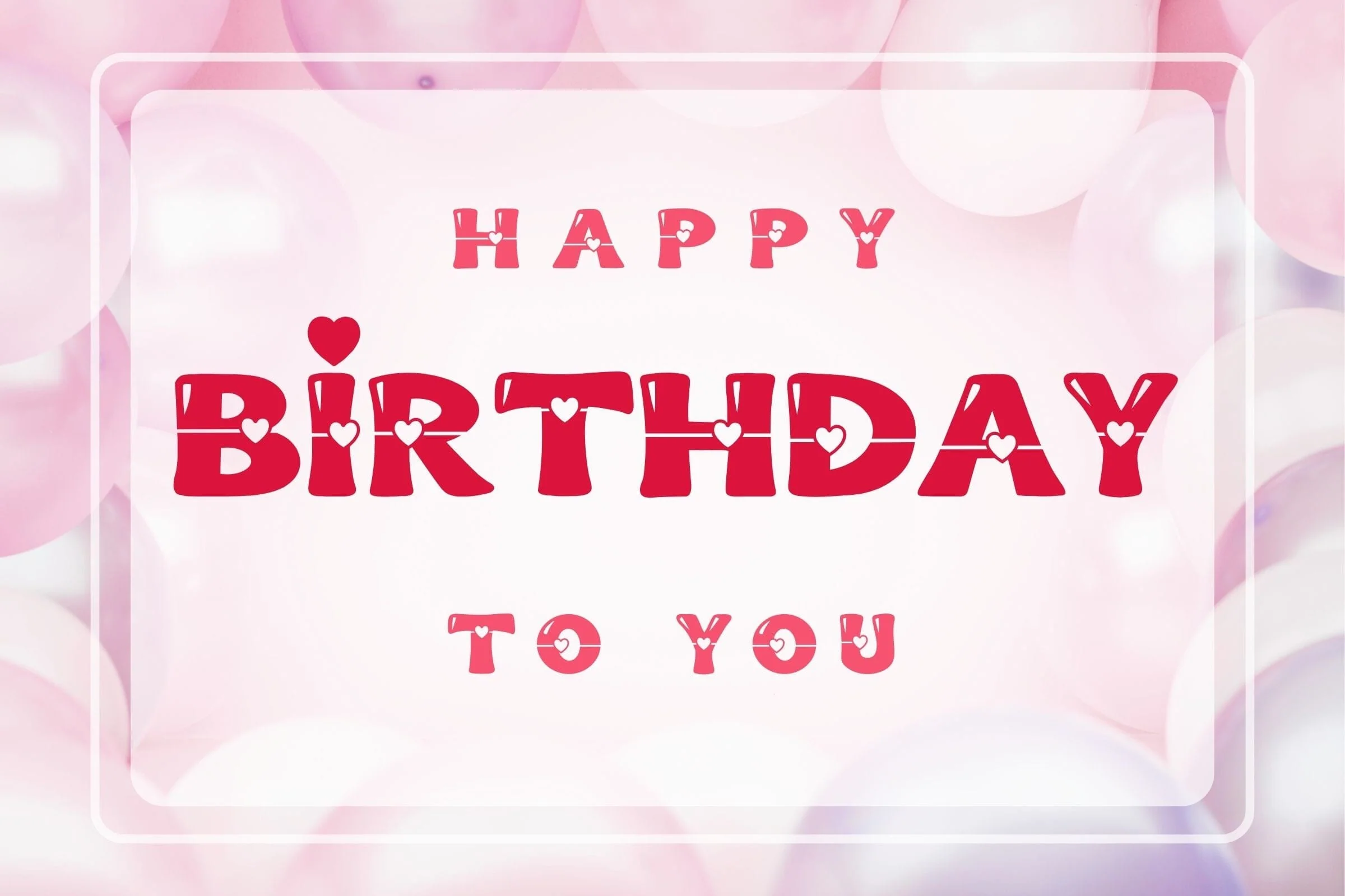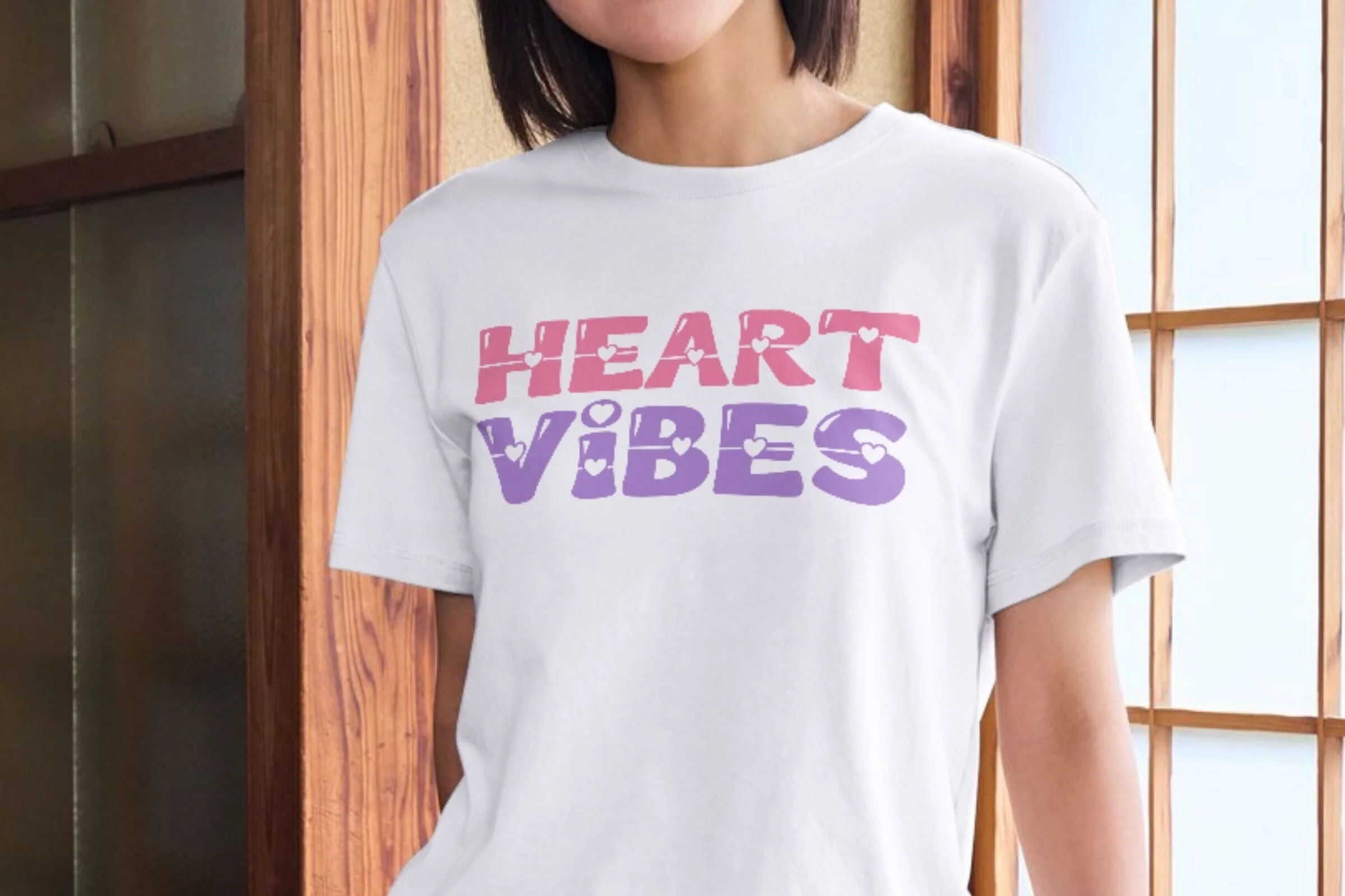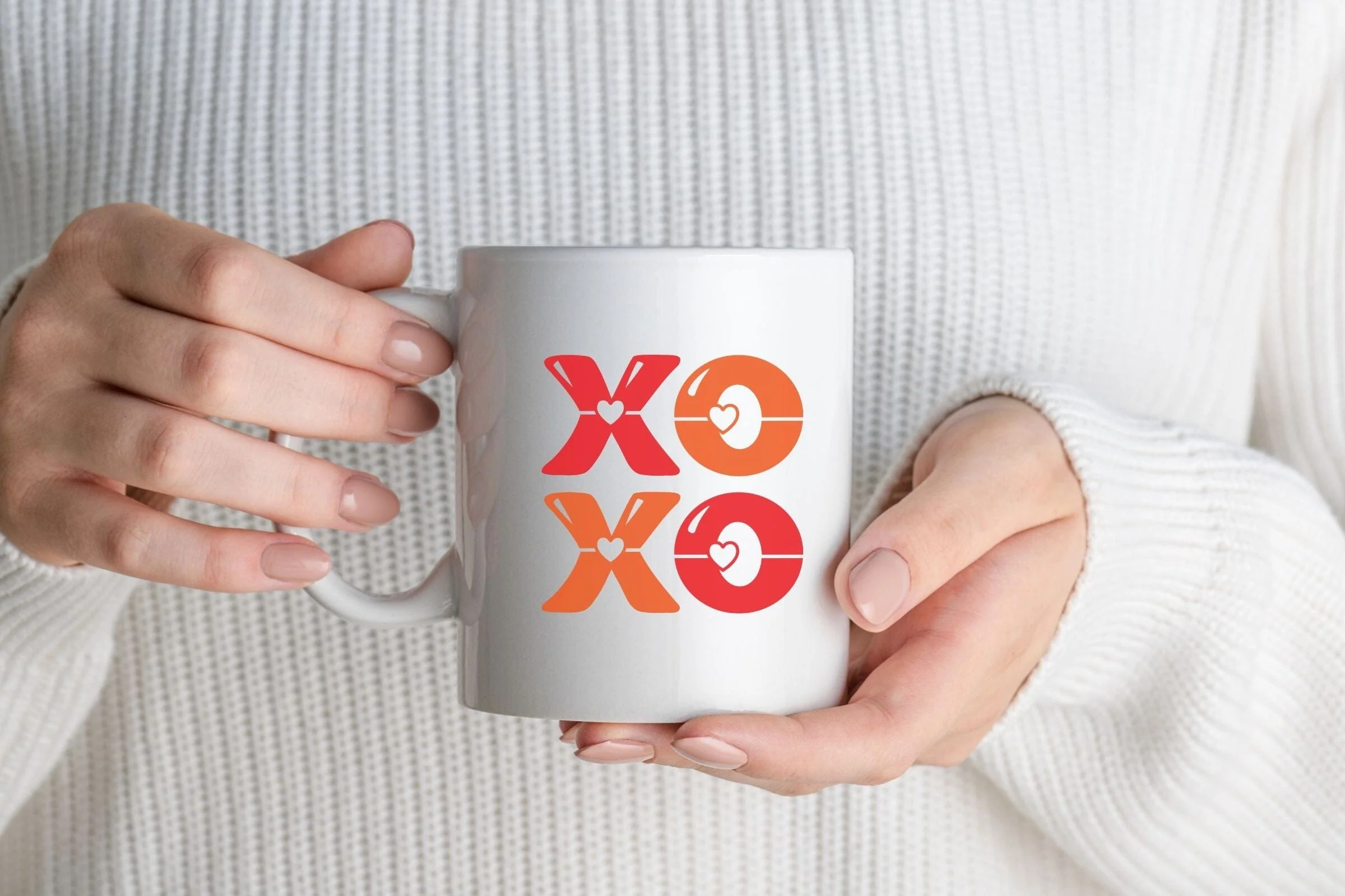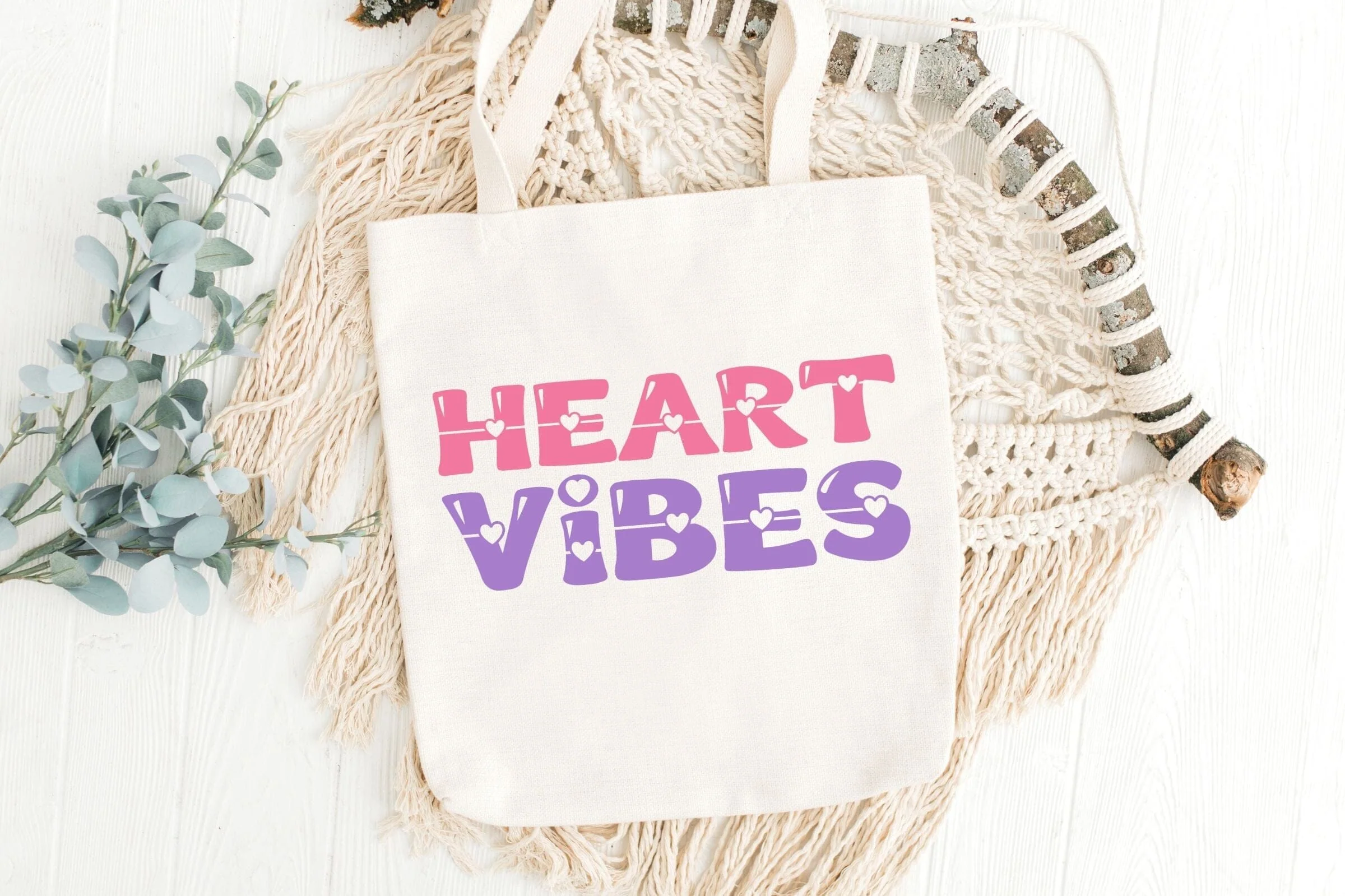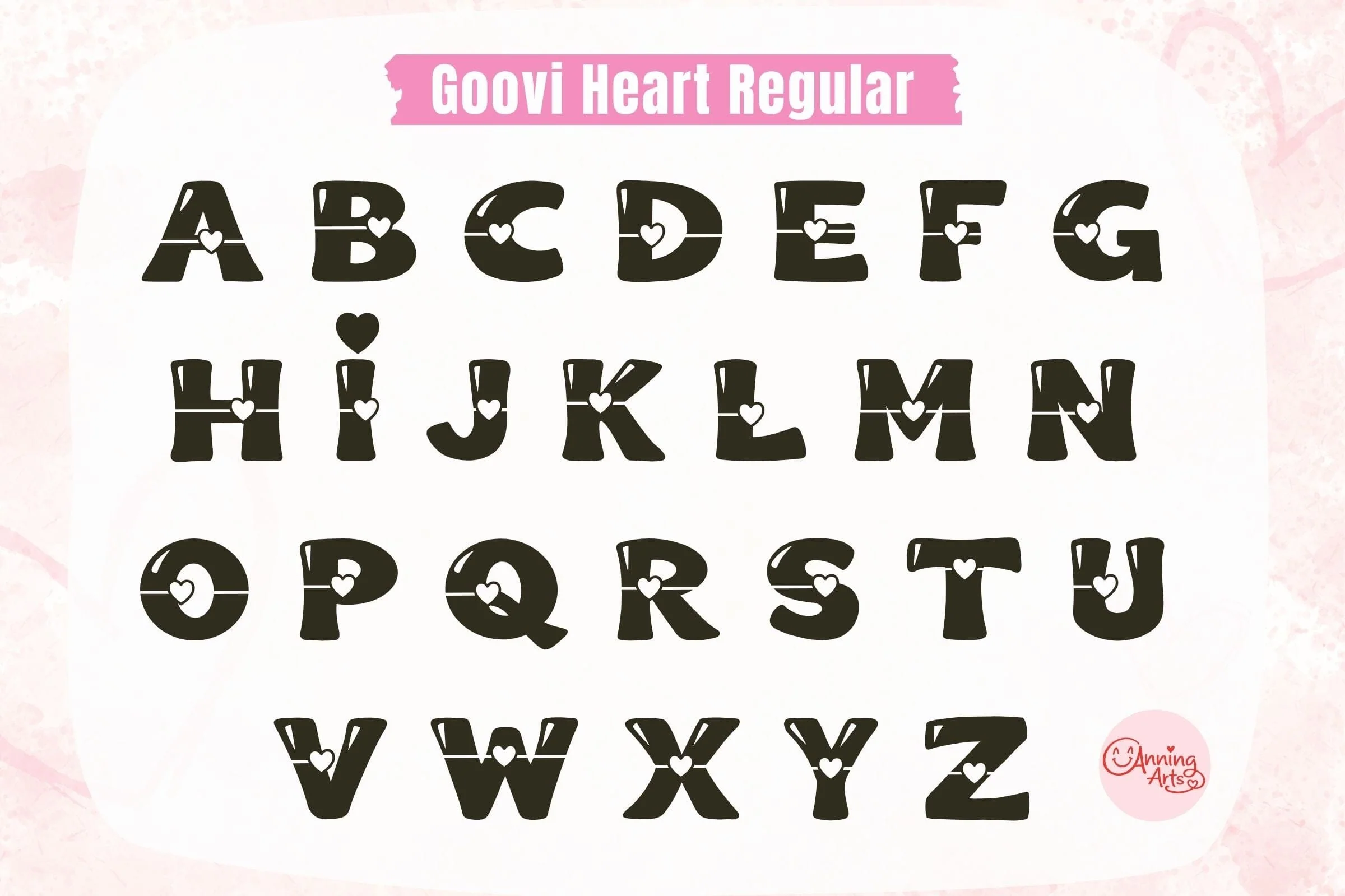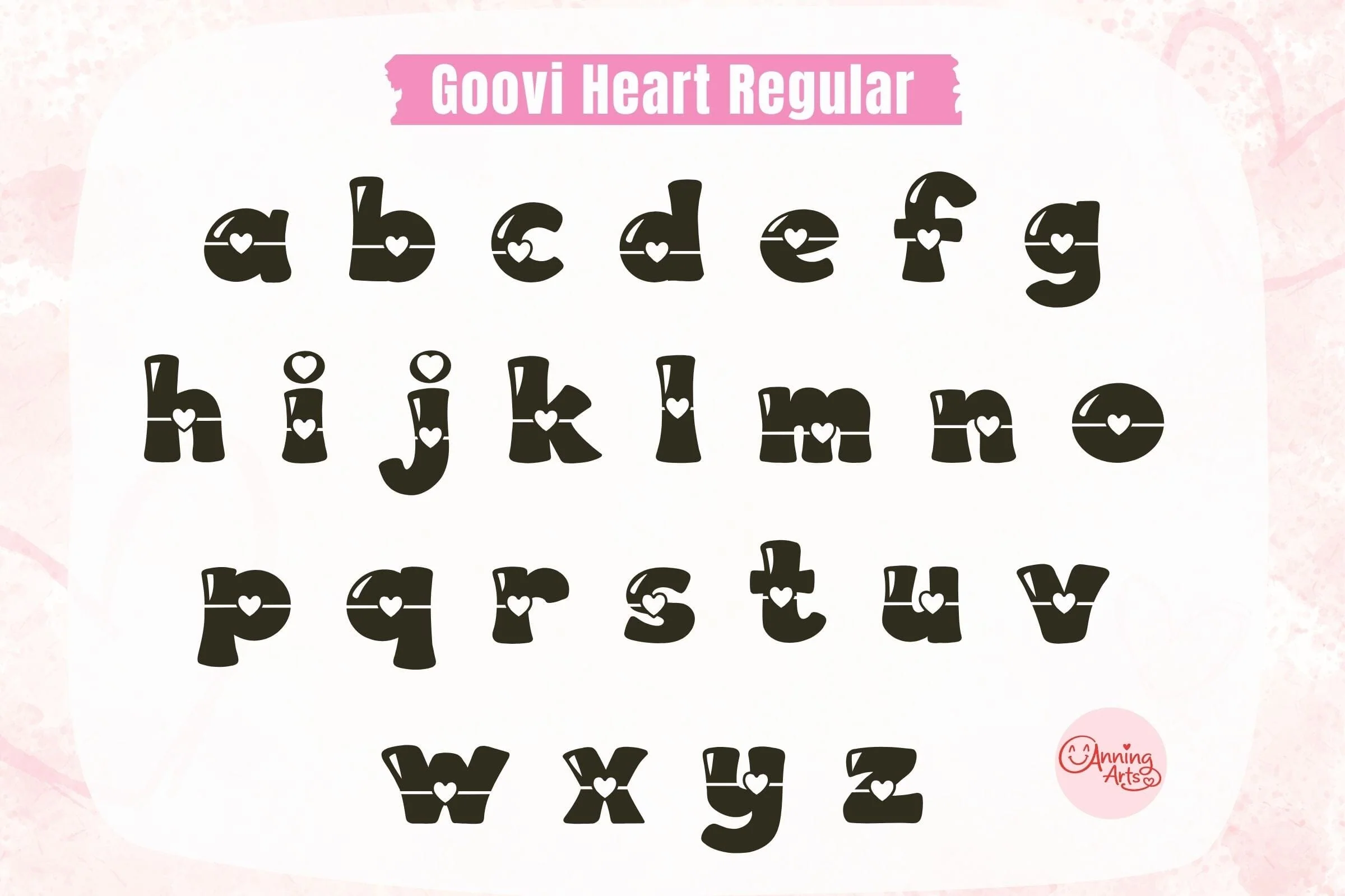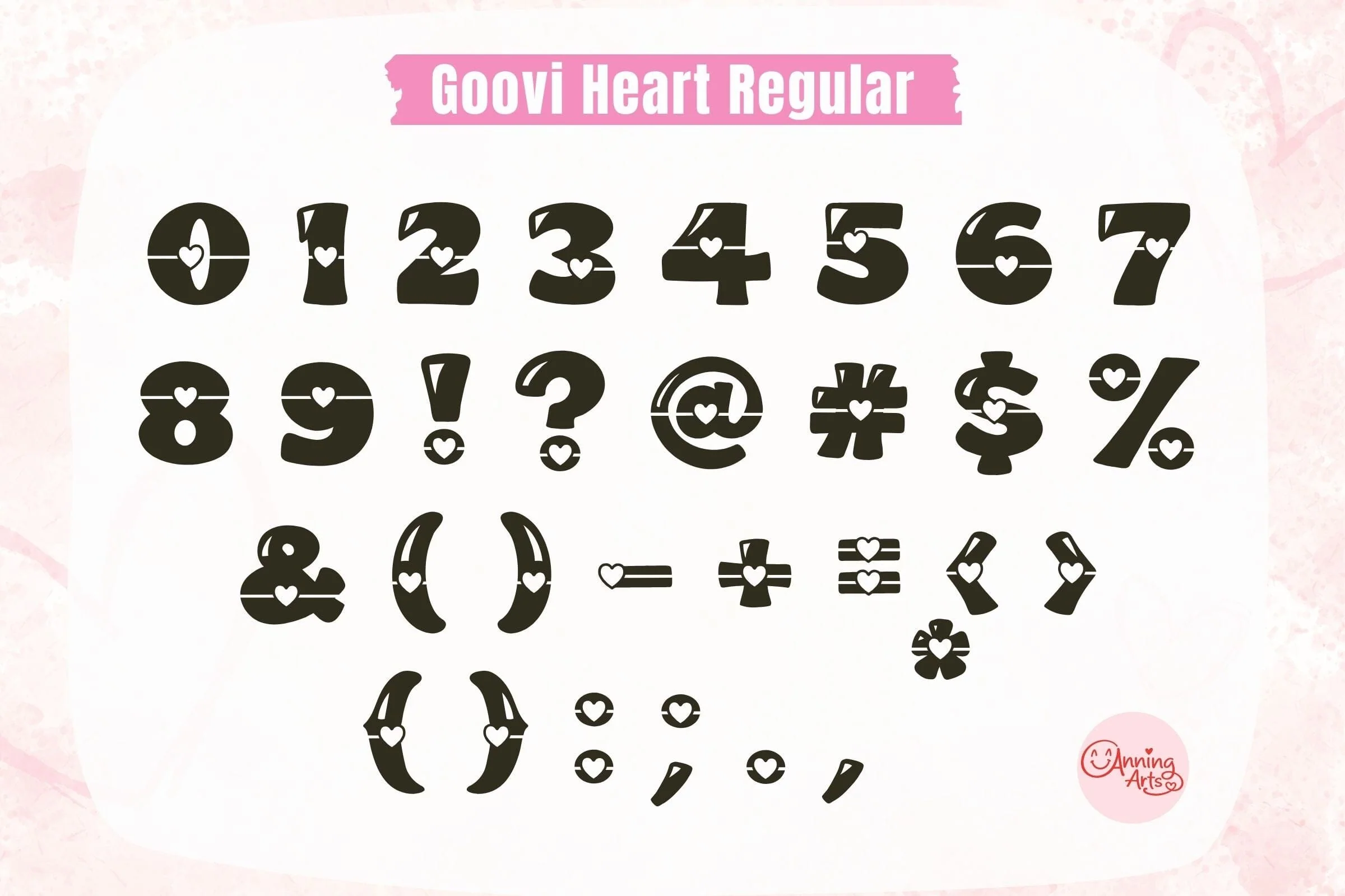
Groovi Heart – Valentine Heart Font
Groovi Heart is a cute Valentine display font with adorable heart details embedded in every letter. Its bold, rounded shapes and playful, groovy style make it perfect for cheerful love-themed designs.
Perfect for:
Valentine graphics & romantic quotes
Apparel, mugs, tote bags & gifts
Stickers, posters & social media designs
Groovi Heart is a cute Valentine display font with adorable heart details embedded in every letter. Its bold, rounded shapes and playful, groovy style make it perfect for cheerful love-themed designs.
Perfect for:
Valentine graphics & romantic quotes
Apparel, mugs, tote bags & gifts
Stickers, posters & social media designs